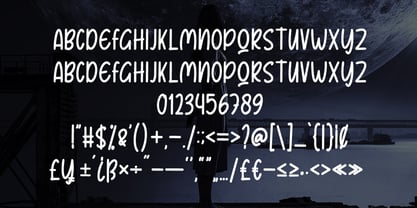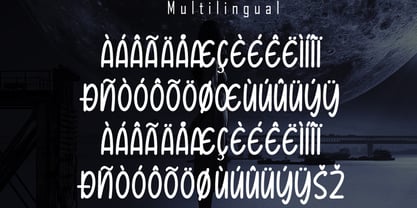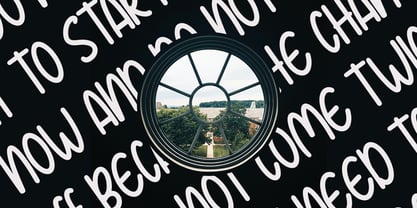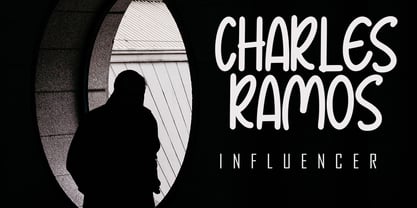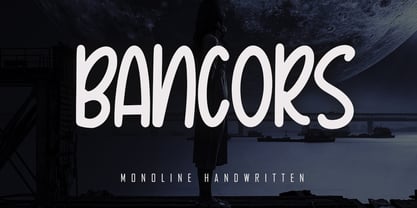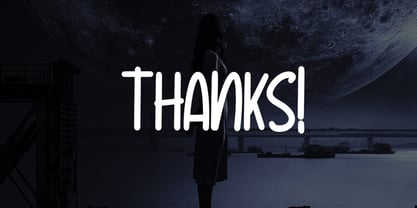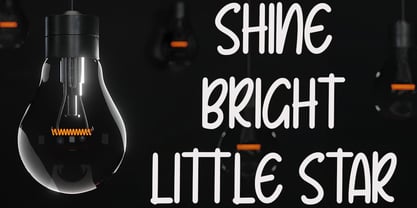
Bancors
by Skiiller Studio
The Bancors Font Family was designed by Irfan Mahmudin and published by Skiiller Studio. Bancors contains 1 styles.
Bancors is a playful monoline handwritten font with rounded shapes and a friendly, casual vibe. Its smooth strokes and balanced letterforms make it perfect for logos, posters, stickers, branding, quotes, and social media designs. The clean monoline style adds simplicity and charm, giving every project a warm, approachable, and modern handcrafted feel.
Designers: Irfan Mahmudin
Publisher: Skiiller Studio
Foundry: Skiiller Studio
Design Owner: Skiiller Studio